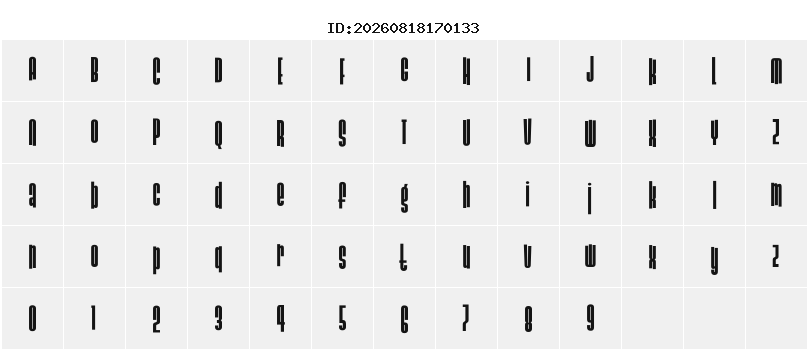
SlackCasual Preview
• Font Name: SlackCasual
• Full Font Name: SlackCasual-Bold
• PostScript Name: SlackCasual-Bold
About SlackCasual.ttf
SlackCasual.ttf is a modern, elegant sans-serif font designed for ultimate readability and visual harmony. Perfect for branding, headlines, web design, and print materials.